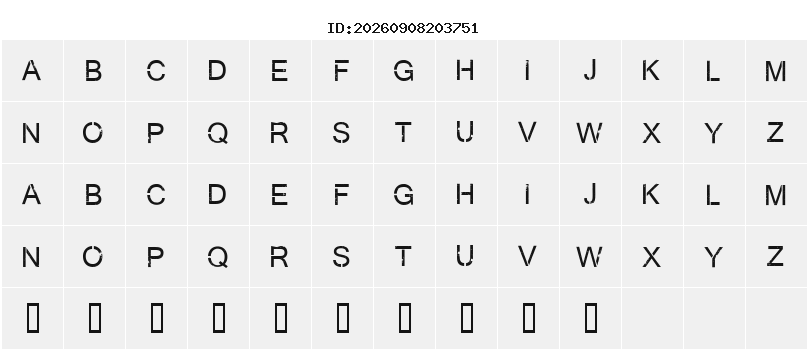
• Font Name: Virtual Bliss
• Full Font Name: Virtual Bliss
• Designer: Chris Vile
• Manufacturer: GKDN web and social imaging
• Description: Virtual Bliss is a font by GKDN web and social imaging, designed by Chris Vile in 2013.
About Virtual Bliss.ttf
Virtual Bliss.ttf is a modern, elegant sans-serif font designed for ultimate readability and visual harmony. Perfect for branding, headlines, web design, and print materials.